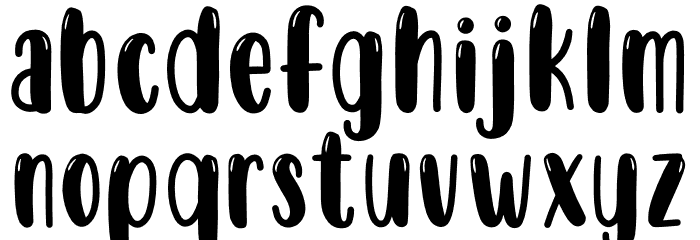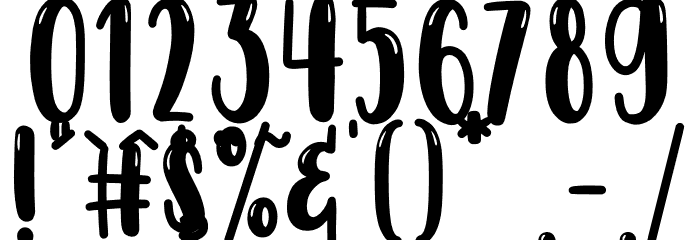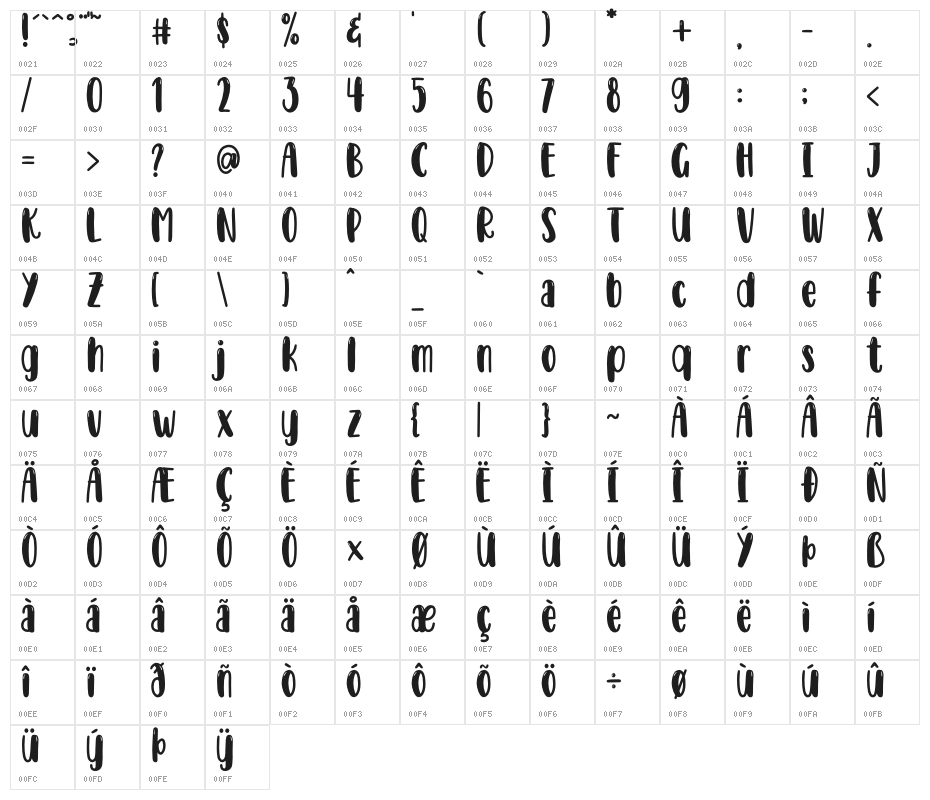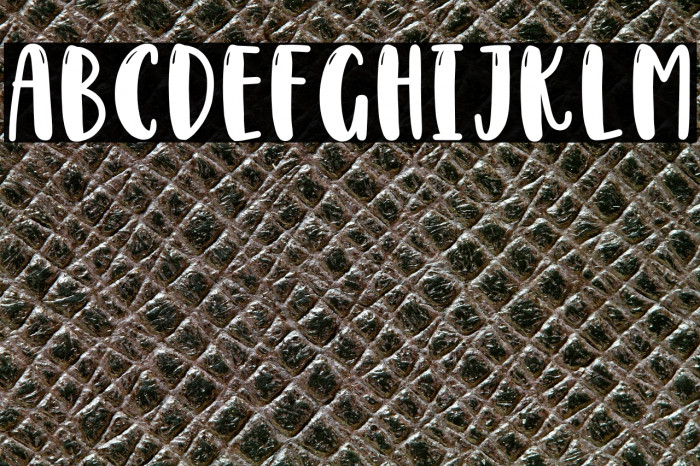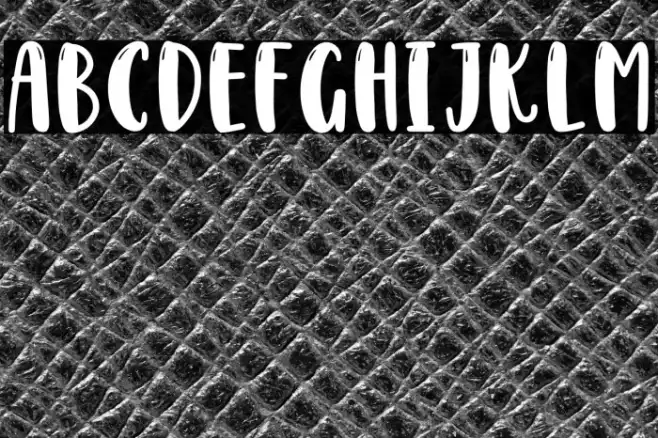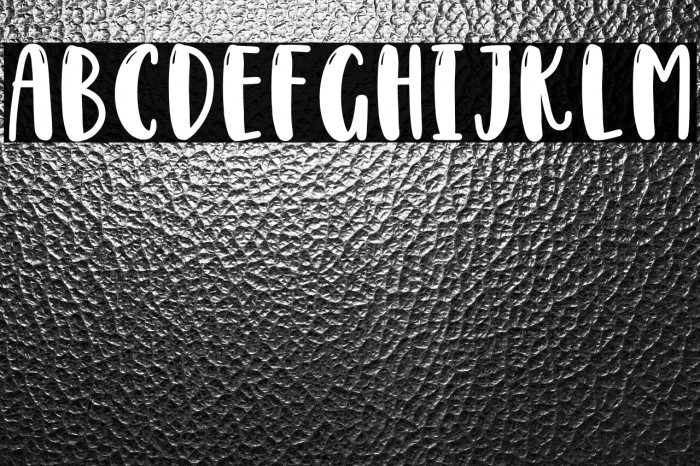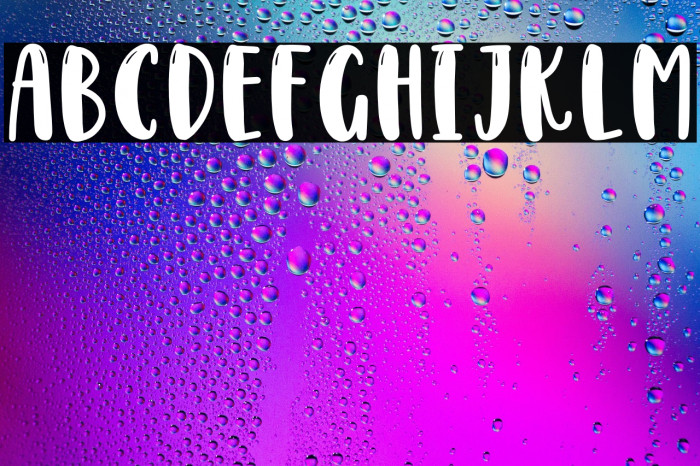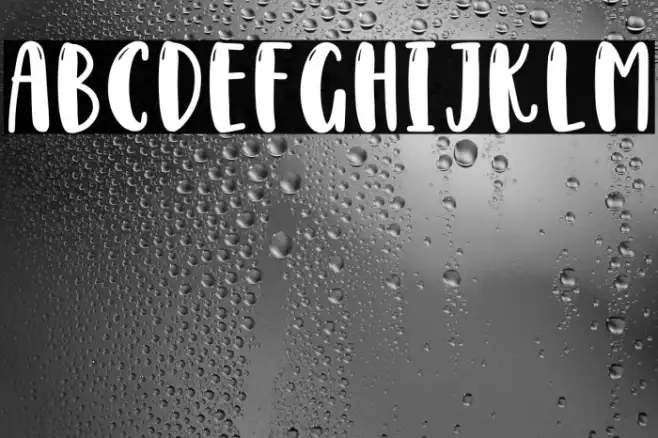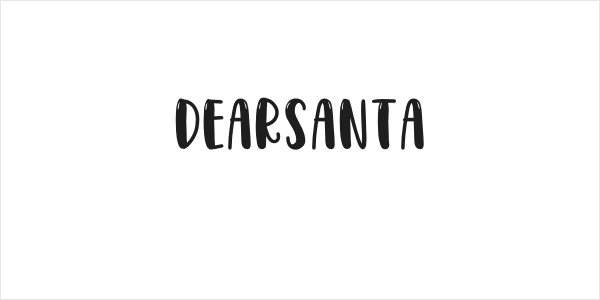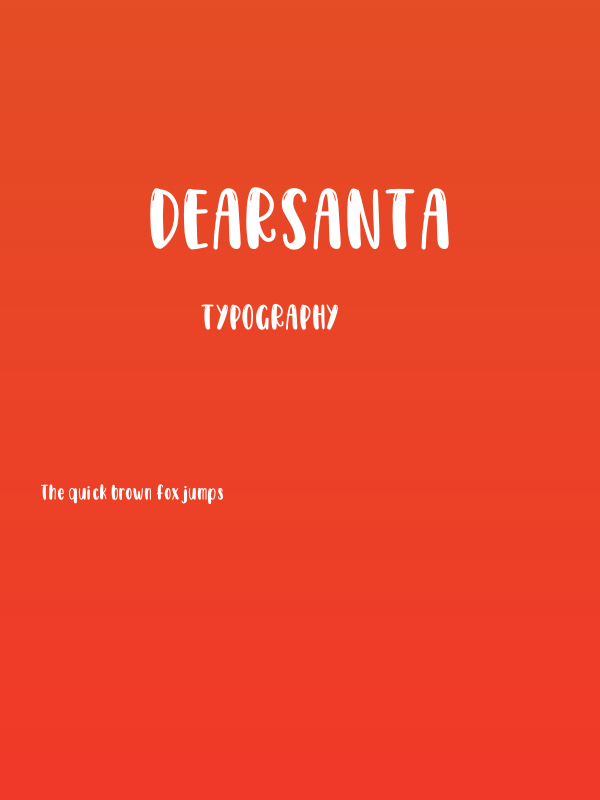
DEARSANTA Font
This font features a playful and whimsical style with bold, rounded strokes that give it a friendly and approachable appearance. The letters are slightly irregular, adding a hand-drawn feel that enhances its charm. The uppercase and lowercase characters maintain a consistent style, with a slight slant that adds to the casual vibe. Numbers and special characters are designed to match the overall aesthetic, ensuring a cohesive look across all text. The font's boldness and unique character shapes make it ideal for projects that require a touch of personality and creativity.
A playful, bold, and hand-drawn style font with rounded strokes.
- Font: DEARSANTA
- Proposed Projects: Perfect for greeting cards, children's books, playful branding, and social media graphics.